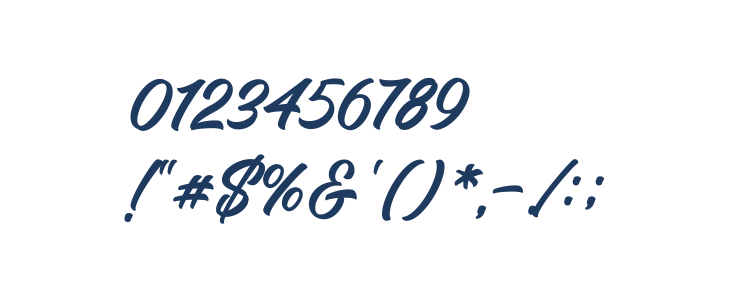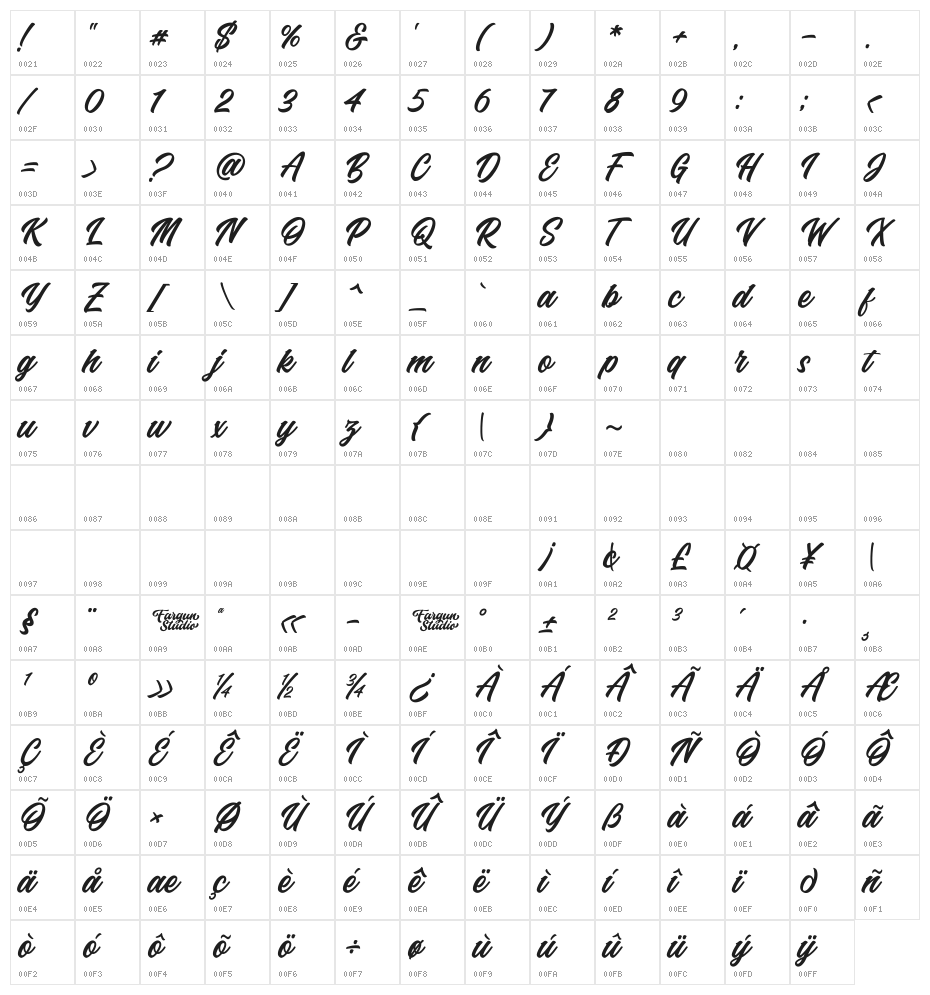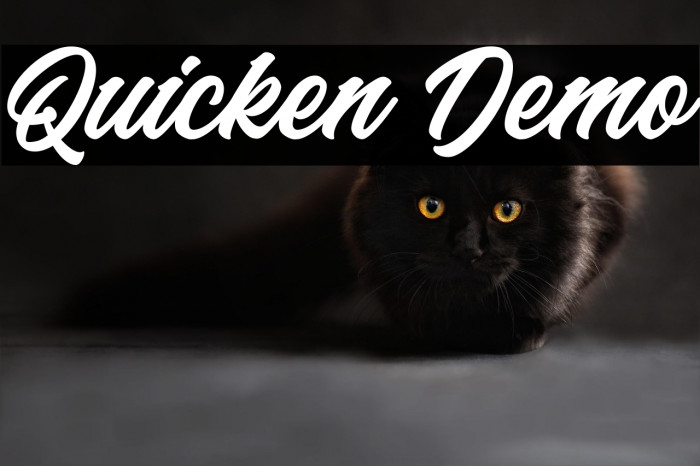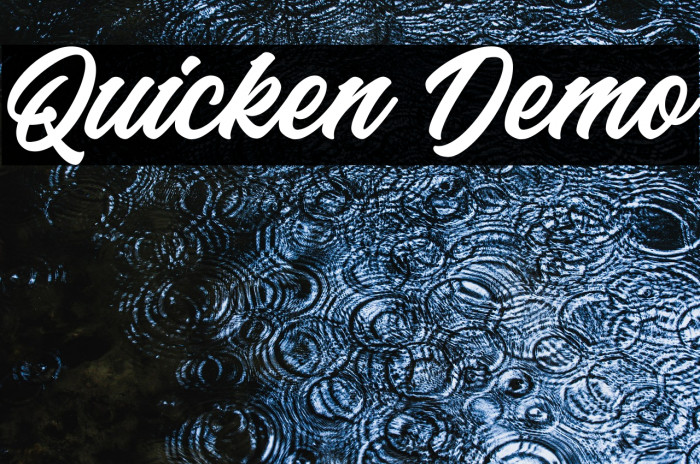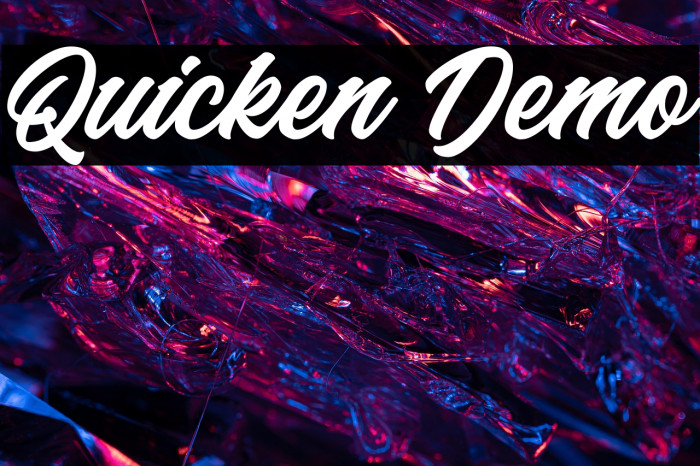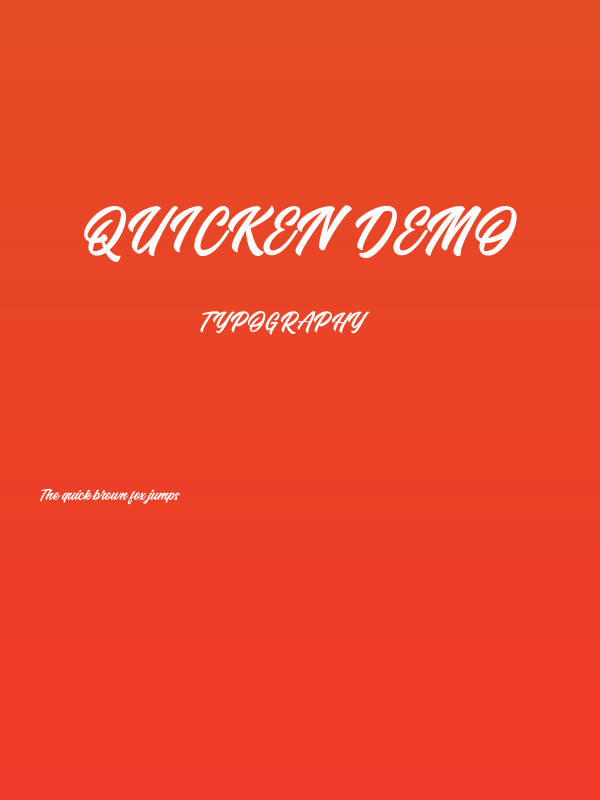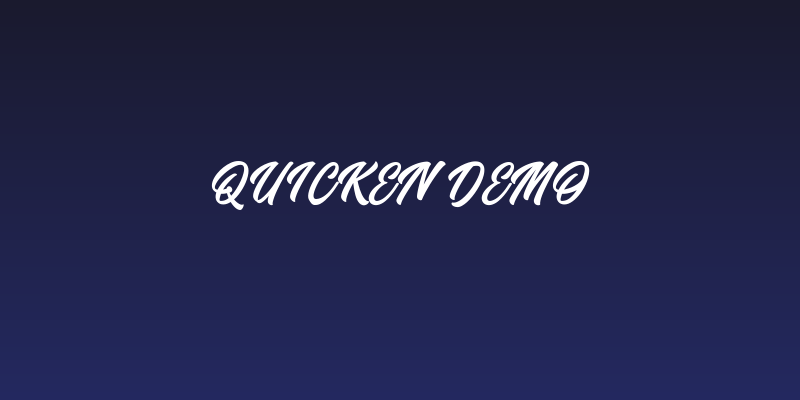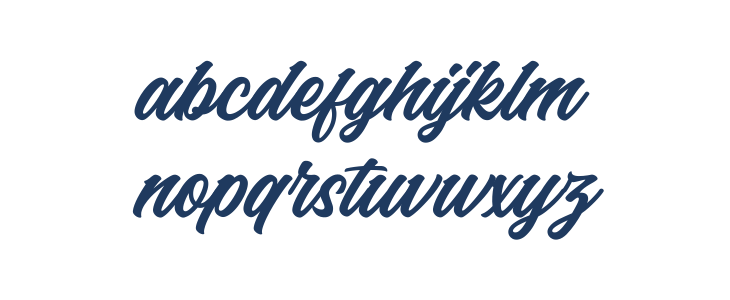
Quicken Demo Font
Quicken Demo Description
This font features a bold, cursive style with a flowing, handwritten appearance. The letters are connected, creating a seamless and elegant look. The uppercase letters are slightly larger and more pronounced, while the lowercase letters maintain a consistent flow. The numerals are styled to match the cursive theme, providing a cohesive look across all characters. Special characters are also included, maintaining the same fluid and bold characteristics. This font exudes a sense of sophistication and dynamism, making it suitable for various creative applications.